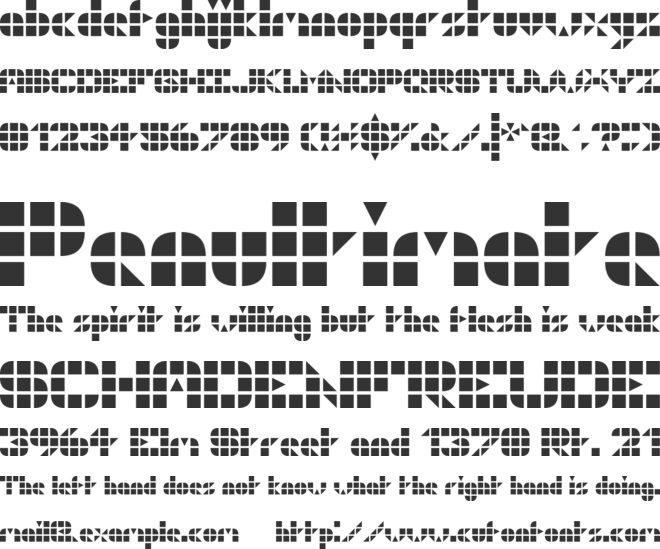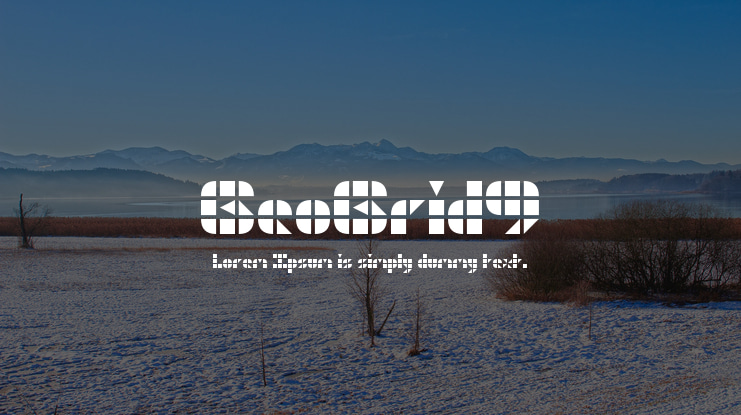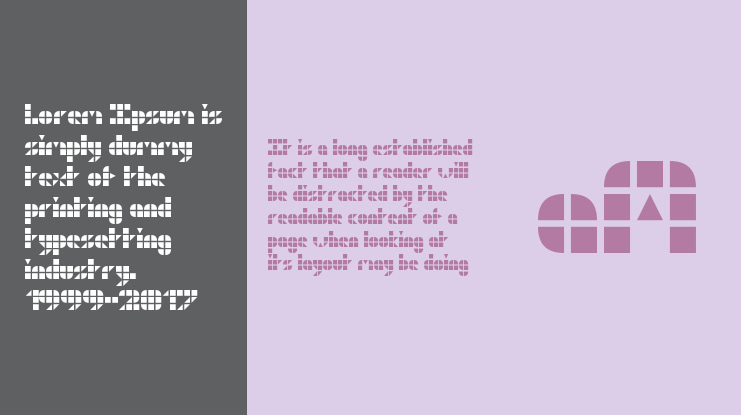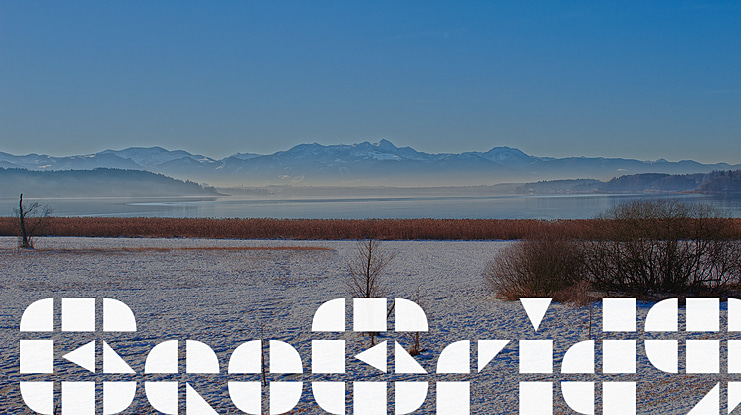
GeoGrid9 Font
Got inspired by an experimental graphic that was attempting to create letters using only 4 shapes. I began working with a 3x3 grid and making sure that each square used had at least one side completely covered by the shape. It ended up reminding me of pizzeria, subway, and arcade walls that used the tiles to create lettering.
This is probably the fastest I've developed and created a font (under 24hrs).